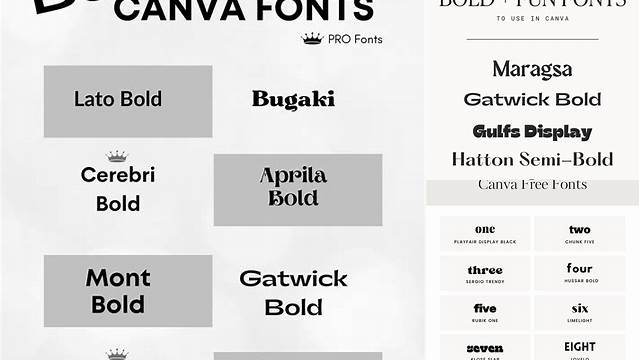
Canva Bold Fonts: Top Free Choices For Stunning Designs
Hey guys! Ever feel like your designs need a little oomph? A way to grab attention and make a statement? Well, look no further, because we're diving headfirst into the world of bold fonts on Canva! Finding the perfect font can be like finding a needle in a haystack, but fear not, because I've curated a list of the absolute best free bold fonts that Canva has to offer. These fonts are not just visually appealing; they're also versatile and ready to elevate your designs, whether you're crafting social media posts, presentations, or even sprucing up your website.
Why Bold Fonts Matter: Making a Statement
So, why are bold fonts so important? Simply put, they command attention. In a world saturated with information, you need your message to stand out. Bold fonts do just that. They instantly draw the eye, making your text more readable and impactful. Think about it: a headline in a bold font immediately tells the viewer, "Hey, pay attention! This is important!" It's like giving your words a megaphone. Strong bold fonts are especially useful for headings, titles, and calls to action. They provide a clear visual hierarchy, guiding the reader's eye through the information. Imagine a poster with a long, thin text. Does it stand out? Probably not. Now, picture that same text in a bold and eye-catching font. It’s a game-changer, right? That’s the power of a bold font. It's about making a statement, being seen, and getting your message across with clarity and confidence. But the use of bold fonts extends beyond mere aesthetics; they can also influence the tone and personality of your design. A bold, clean sans-serif font might project professionalism and modernity, perfect for a business presentation. On the flip side, a bold, playful serif font could inject a sense of fun and creativity into a social media graphic. Choosing the right font is about aligning the visual elements with your message. It's about creating the right feeling. So next time you're looking to add some spice to your content, do not hesitate to embrace the power of boldness. It’s one of the most reliable tools to have in your design toolkit.
Choosing the Right Bold Font for Your Project
Alright, you're on board with the bold font idea, but now what? How do you pick the right one? This is where the magic happens, and it's all about understanding the nature of your project, your target audience, and the overall message you wish to convey. The first thing you should think about is the style of your project. Are you designing a minimalist website or a flashy poster for an event? The requirements of these two projects will be very different, so your font choices should reflect the needs of the project. Also, think about your target audience. Are you targeting a younger, more playful audience, or are you trying to reach professionals? Consider what sort of style will resonate with them and what they find attractive. Professionalism and playfulness can co-exist in a font, but it is important to remember to maintain the personality of your brand. The overall message is also crucial. Does your message need to convey urgency, authority, or even a feeling of fun? Each font exudes its own personality. A sharp, geometric font might be suitable for an urgent announcement, while a softer, rounded font could be great for conveying a sense of warmth and approachability. The goal is to ensure that the font complements your project's other elements, like the color palette, imagery, and overall layout. It is best to mix and match bold fonts with other font weights, sizes, and styles to create a harmonious and visually interesting design. Don’t be scared to experiment! Try different fonts and see what looks the best. Sometimes, the most unexpected combination is the perfect one! Also, it’s essential to remember that the same font can appear differently depending on the size, spacing, and other design elements you use. Consider using different weights of the same font. This allows you to add hierarchy to your designs. So take your time and find the bold font that perfectly suits your project.
Top Free Bold Fonts on Canva You Need to Know
Okay, so you're ready to start your search for the best free bold fonts on Canva. I will share with you some of my favorites. Remember that the font you select is a reflection of your personal taste and what you want to show to the world. These fonts will help you with your design goals, so get your creative juices flowing!
1. Montserrat
Montserrat is a classic for a reason. This bold sans-serif font is incredibly versatile, clean, and modern. It's perfect for headlines, titles, and even body text, thanks to its excellent readability. The font's different weights mean you can play around with its boldness. You'll find it works great on social media graphics, website headers, and print materials. If you want a font that is both strong and flexible, this is the one! I strongly recommend that you add this font to your list.
2. Bebas Neue
Bebas Neue is the go-to choice for projects that need an extra punch. It is a bold, condensed sans-serif font that is instantly recognizable. It’s awesome for headlines, logos, and other design elements that need to make a splash. You can use it in a variety of scenarios. Its clean lines and strong presence make it perfect for making a statement. The font is ideal for creating a professional look while making a statement. It's perfect for headlines, logos, and any design project where you need to command attention. Its bold design and condensed structure ensure your text is both visible and aesthetically pleasing.
3. Anton
Anton is a bold, impactful sans-serif font designed for display purposes. Its strong, confident presence is ideal for headings, posters, and anywhere you want your text to shout! It’s known for its clear and powerful style, which makes it ideal for drawing attention to essential messages or branding components. This font is perfect for a variety of projects. You can use it to design a logo or make a poster for your next event. If you’re after a strong look, this is the font for you.
4. Raleway
Raleway is a versatile sans-serif font that offers a bold weight that is great for headlines and emphasis. It balances a modern aesthetic with excellent readability, making it a great option for a wide range of design projects. Its clean lines and stylish appearance make it easy to incorporate into any design. Raleway is a popular font choice because it is compatible with all sorts of different themes, so it is very flexible. If you want a font that is both visually appealing and very flexible, this is a great option!
5. Oswald
Oswald is a bold, condensed sans-serif font that is fantastic for headlines and titles. It's designed for web use, so it's incredibly readable at various sizes. The bold weight makes it stand out and is perfect for drawing attention. This is a popular font among designers and for good reason. Its condensed nature and bold weight makes it an effective way to display your message. It's the perfect font for your web project!
How to Use Bold Fonts Effectively in Canva
Now that you have a list of bold fonts to pick from, here are some tips for making the most of them in Canva.
Pairing Fonts
Mixing and matching fonts is a great way to create visual interest. Pair a bold font for your headline with a simpler font for your body text. This creates contrast and hierarchy, guiding the reader's eye. You should try using different bold fonts as well. Try to play around with it! Don’t be scared to experiment and see what works best for your needs.
Conclusion: Unleash Your Design Potential
So, there you have it, folks! The best free bold fonts on Canva to help you create stunning designs. Remember to experiment, play around with different combinations, and have fun. The most important thing is to find fonts that reflect your brand, your message, and your personal style. With these fonts and tips, you're well on your way to creating designs that grab attention and leave a lasting impression. Now go out there and make some magic!